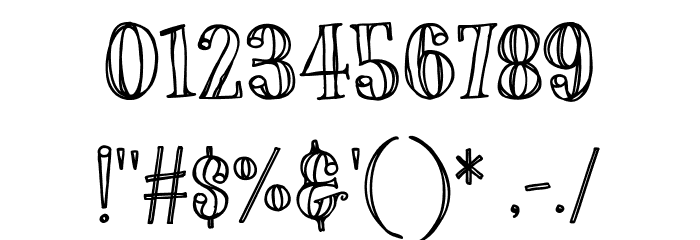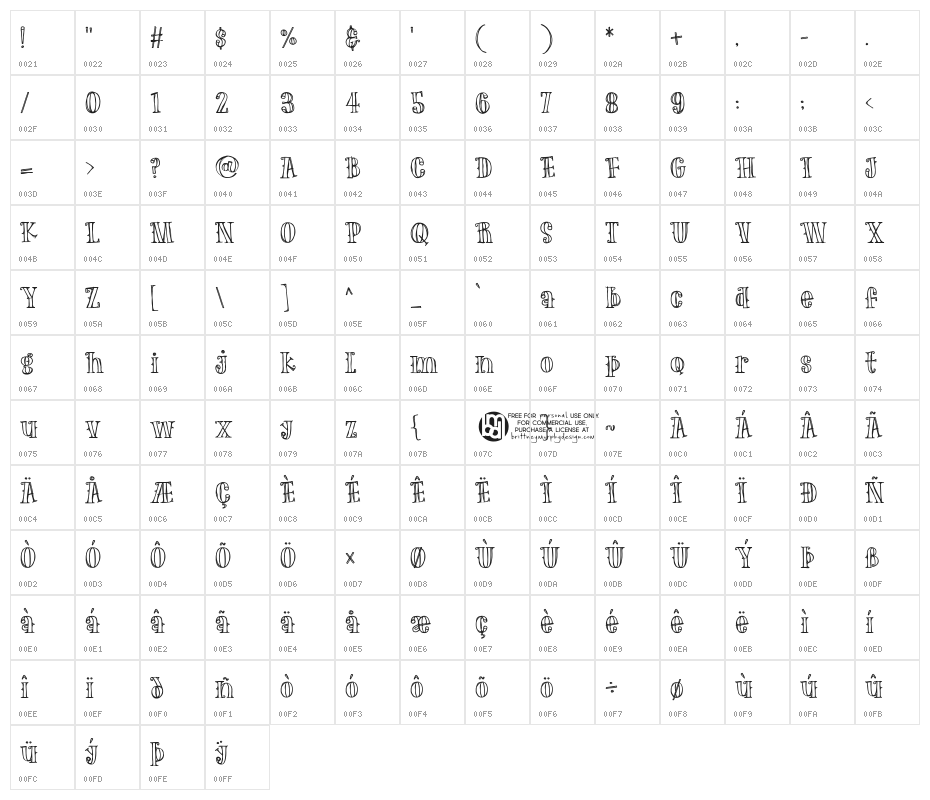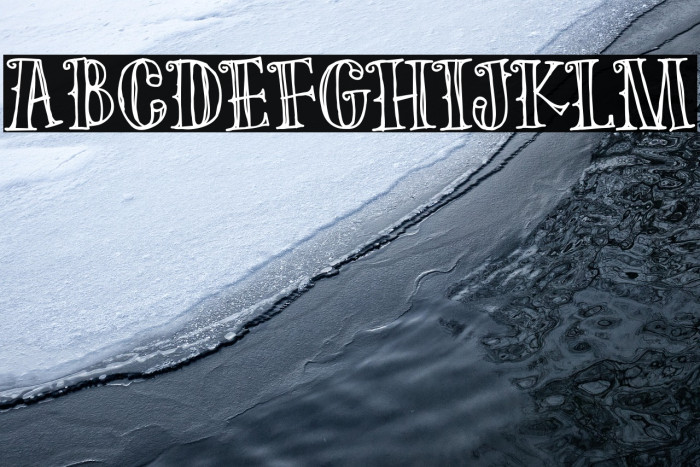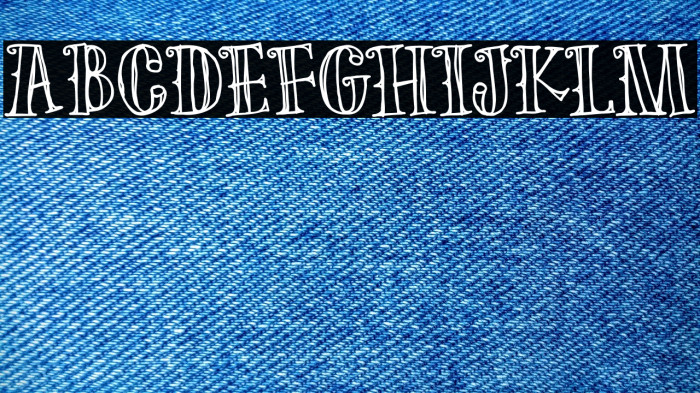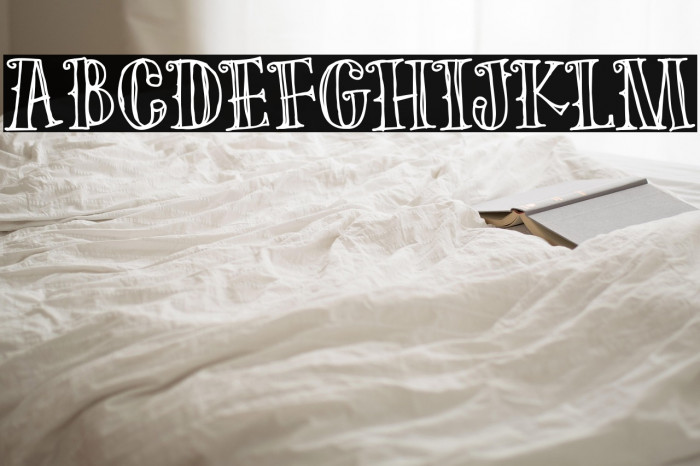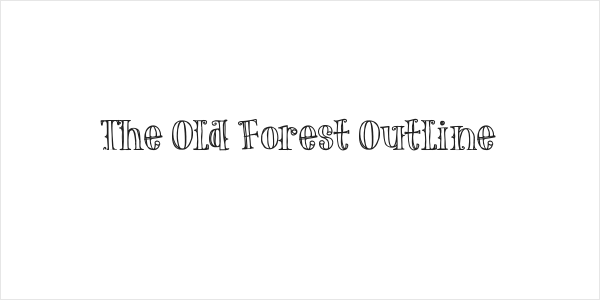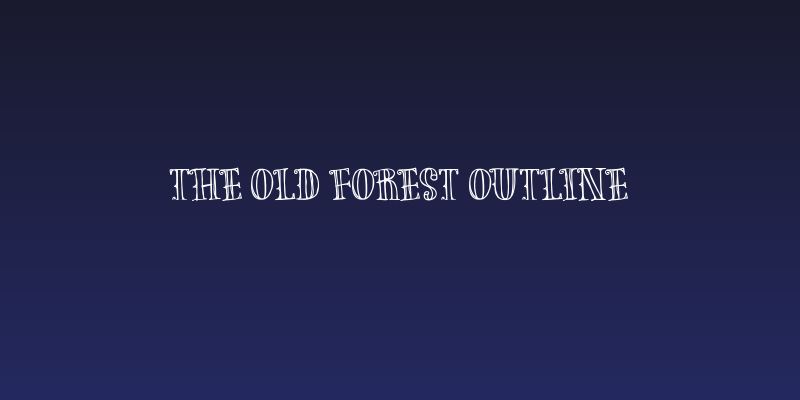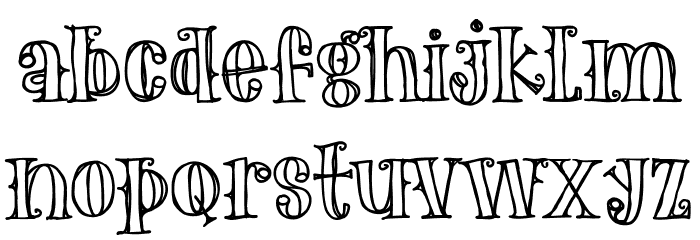
The Old Forest Outline Font
The Old Forest Outline Description
This font features a whimsical and decorative style with an outline effect that gives it a playful and artistic appearance. The characters are bold and have a hand-drawn feel, with intricate details that make each letter unique. The uppercase and lowercase letters maintain a consistent style, while the numbers and special characters complement the overall design. The font's outline nature adds a sense of depth and creativity, making it ideal for projects that require a touch of fun and imagination.
| Proposed Projects | Ideal for children's book covers, playful posters, creative invitations, and artistic branding projects. |